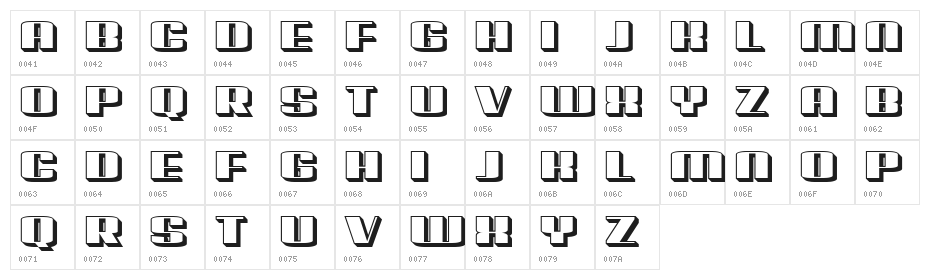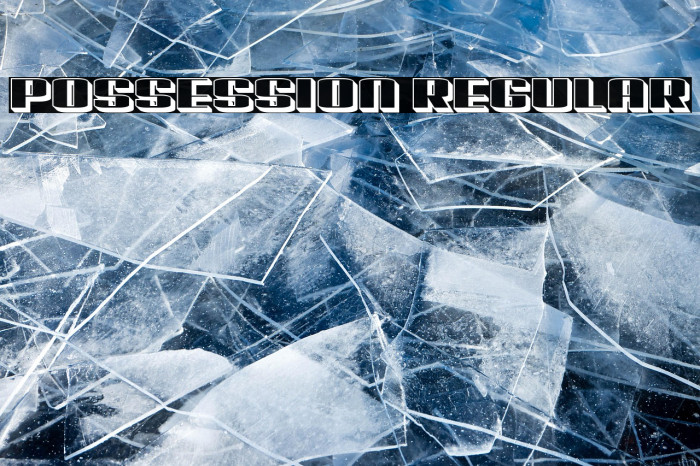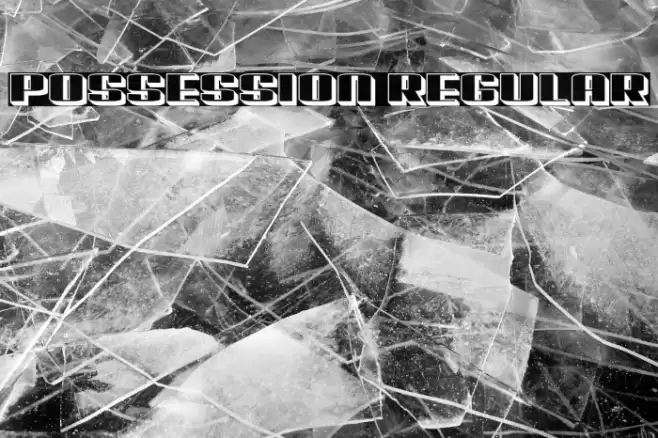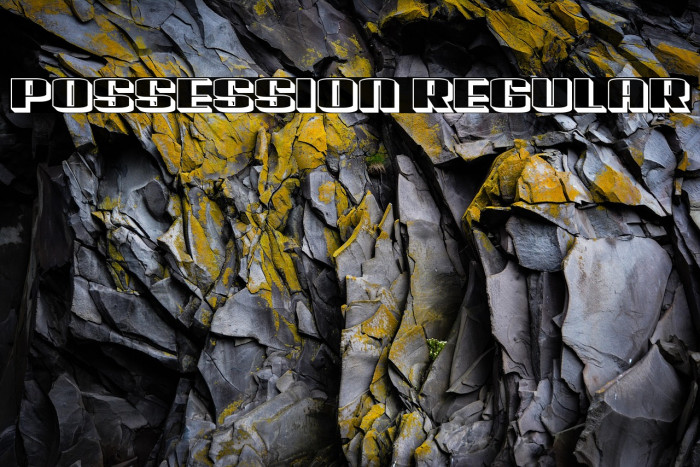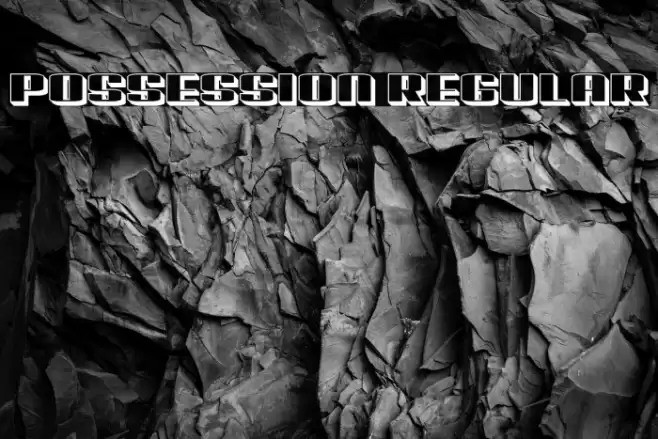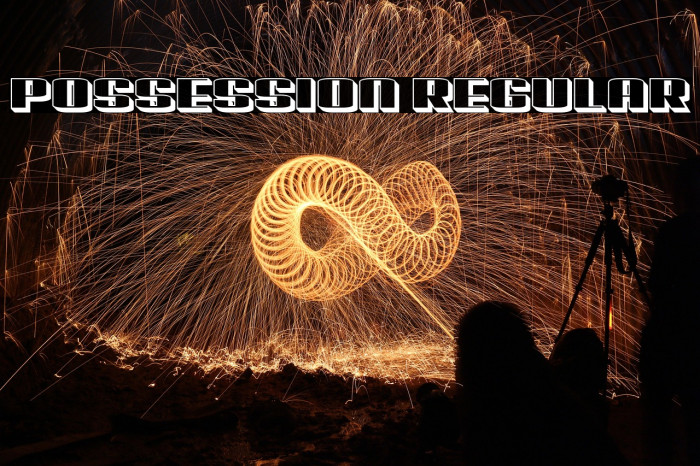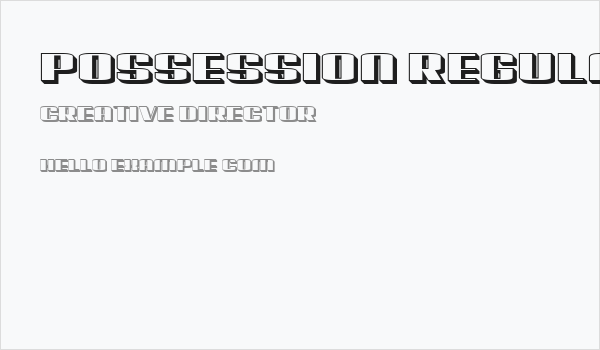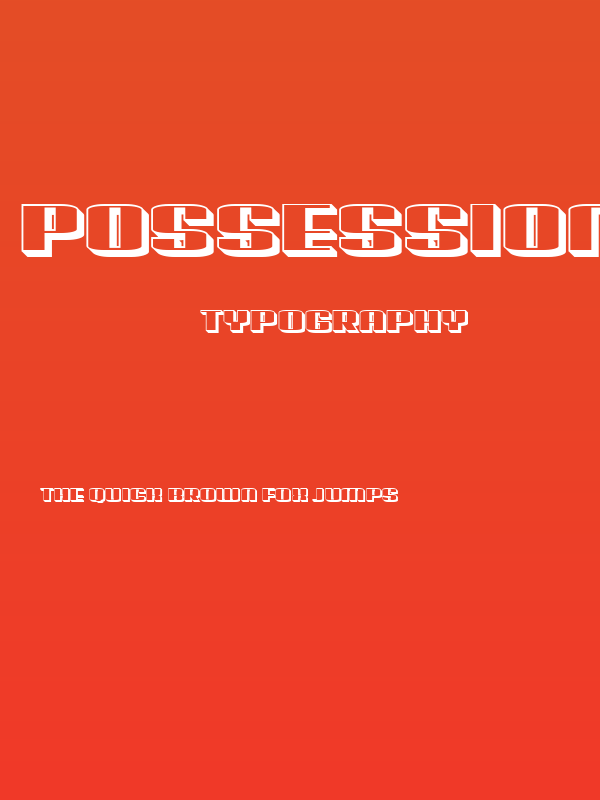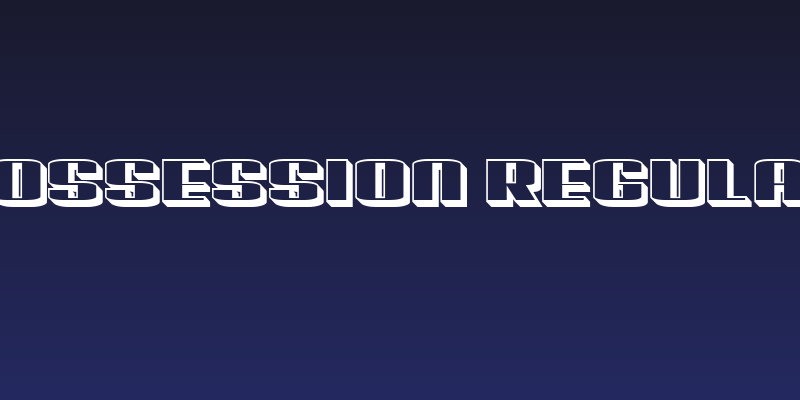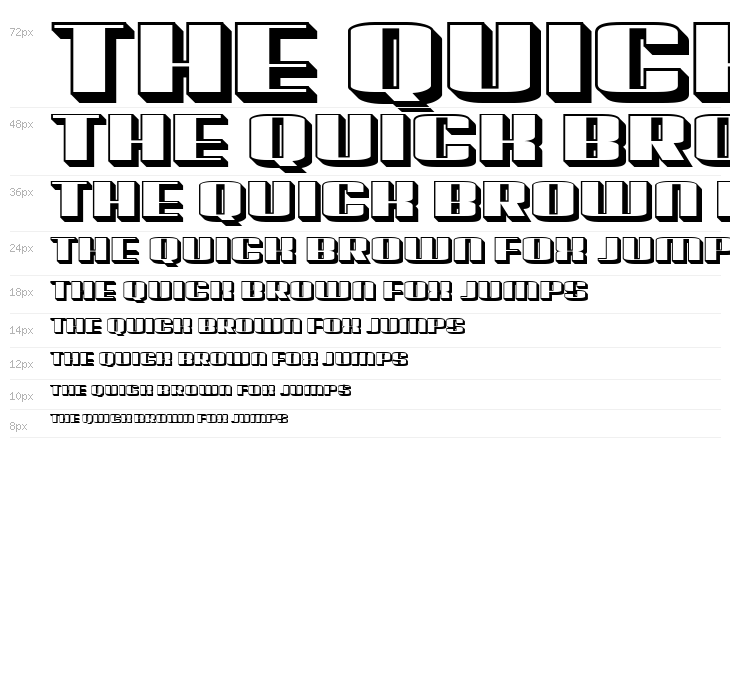
Possession Regular Font
Possession Regular Description
This font features a bold and striking design with a three-dimensional effect, giving it a unique and dynamic appearance. The letters are uppercase and have a blocky, geometric style with sharp edges and a shadow effect that adds depth. The font is highly decorative, making it suitable for attention-grabbing headlines or titles. Its boldness and distinct style make it stand out, while the consistent width of the characters ensures readability. The font's modern and edgy look is ideal for projects that require a strong visual impact.
| Proposed Projects | Ideal for posters, logos, video game titles, and any project needing a bold, modern look. |